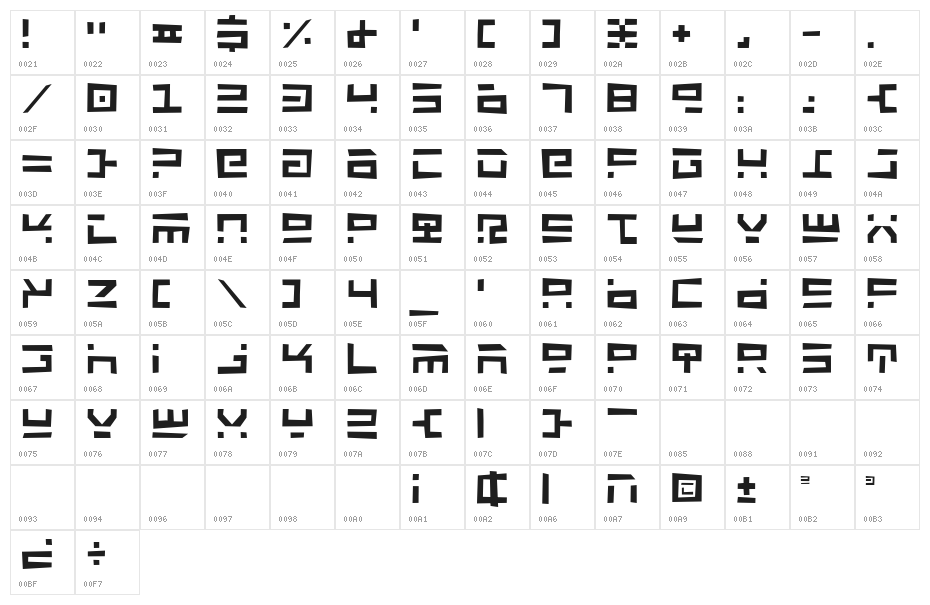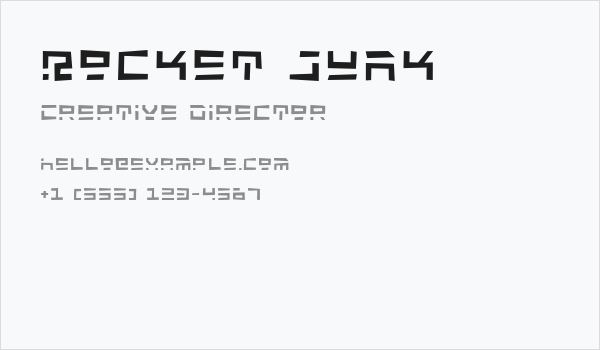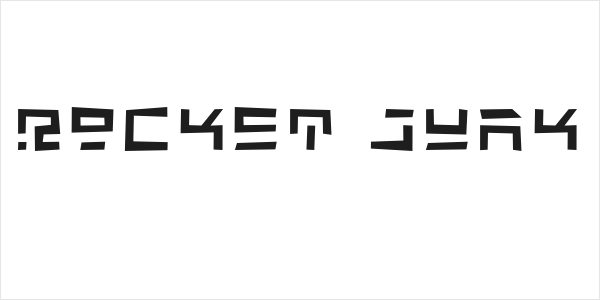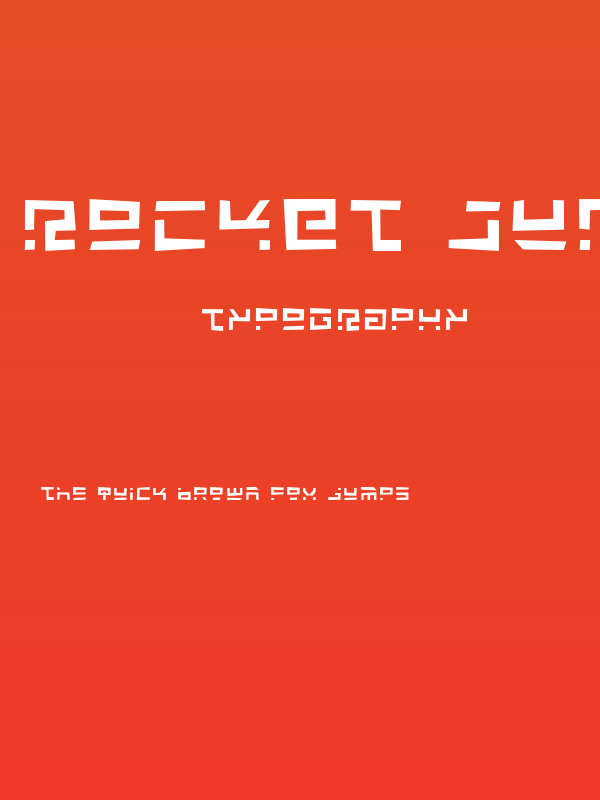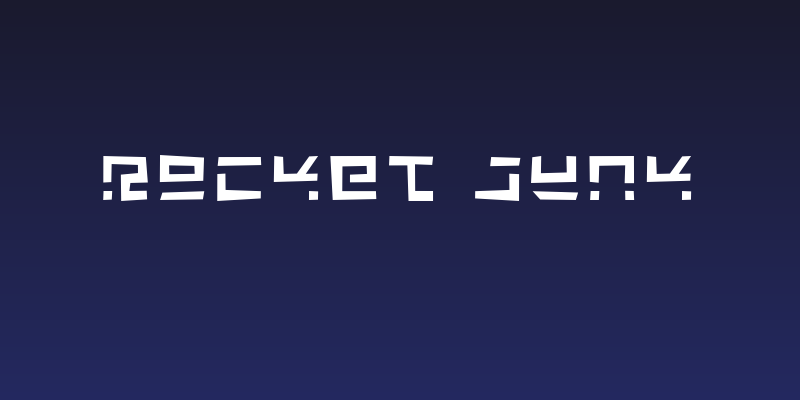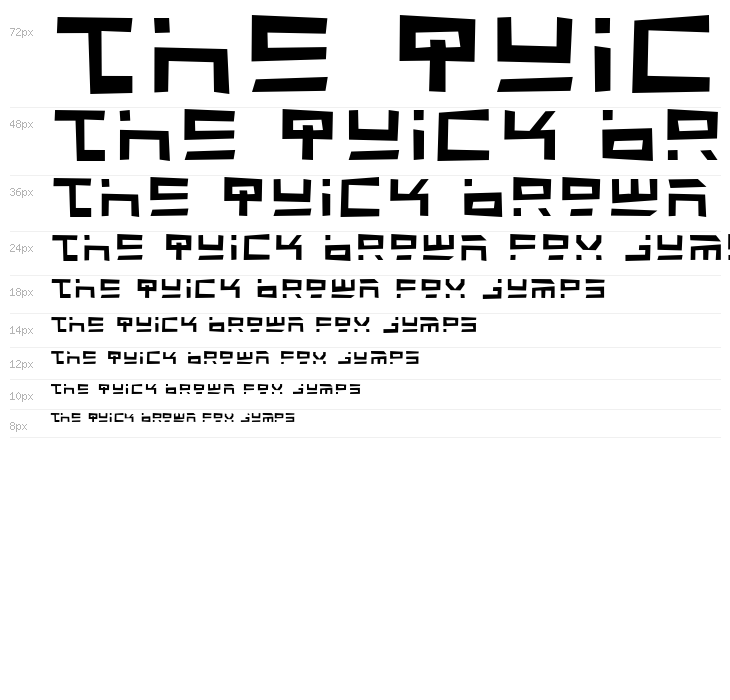
Rocket Junk Font
Rocket Junk Description
This font features a futuristic and geometric design, characterized by its bold and angular shapes. The letters are constructed with a combination of straight lines and sharp angles, giving it a distinct, tech-inspired appearance. The uppercase and lowercase letters maintain a consistent style, with unique cutouts and asymmetrical elements that add to its modern aesthetic. The numerals and special characters follow the same design principles, ensuring a cohesive look across all glyphs. This font's strong visual impact makes it ideal for projects that require a contemporary and edgy feel.
| Proposed Projects | Ideal for sci-fi themed designs, technology branding, video game titles, and modern posters. |